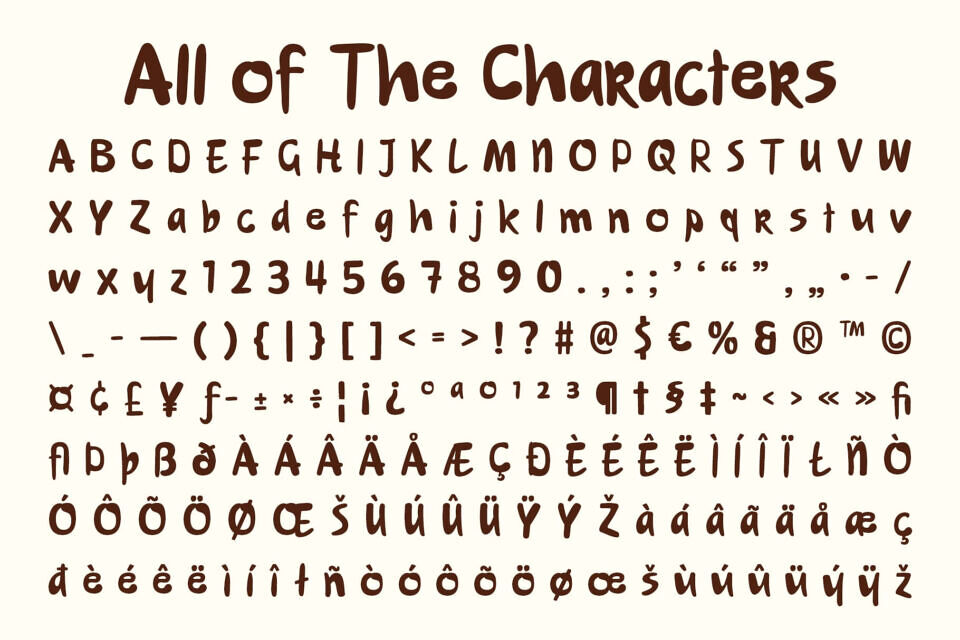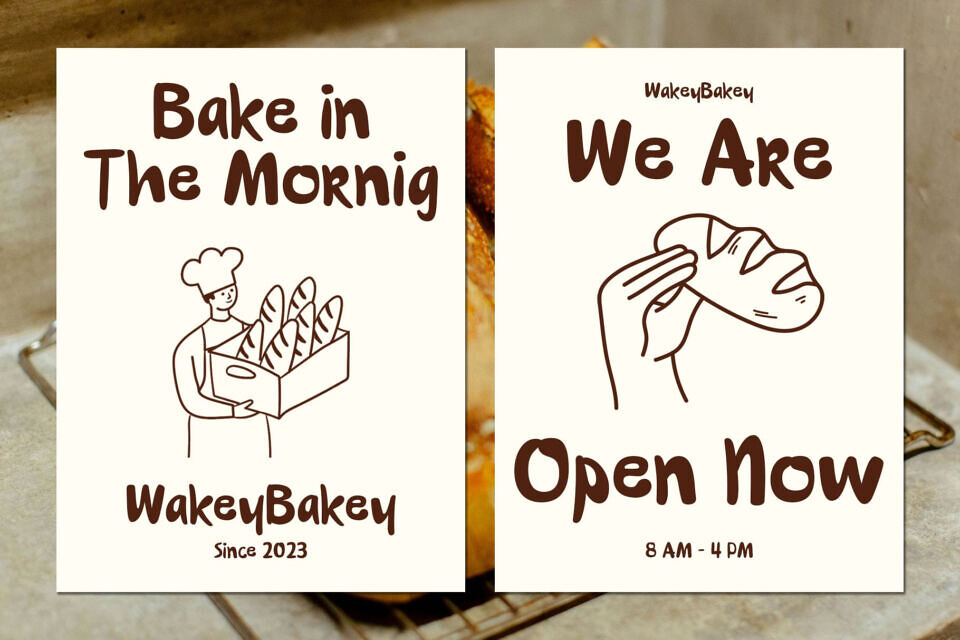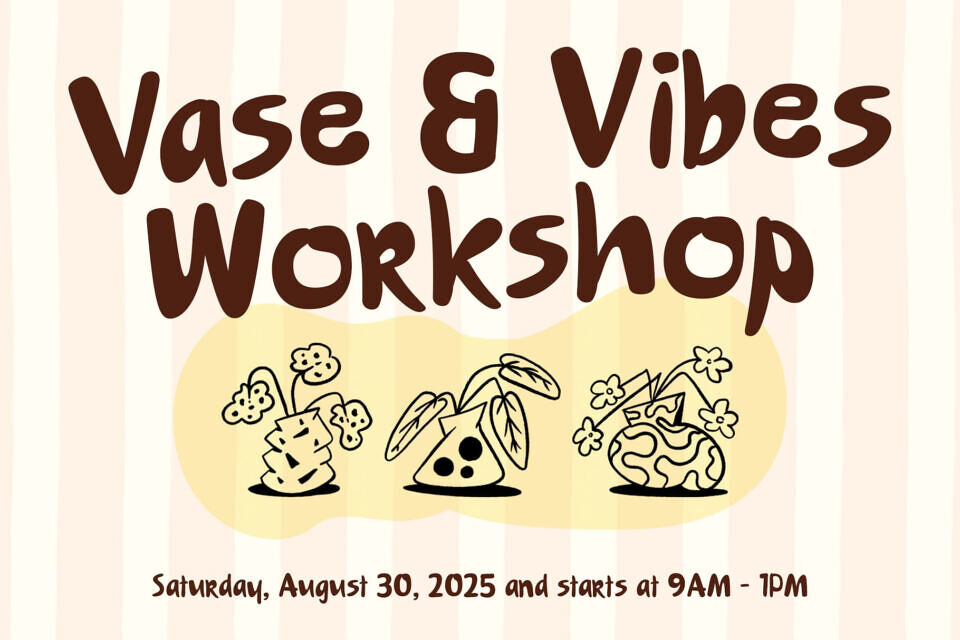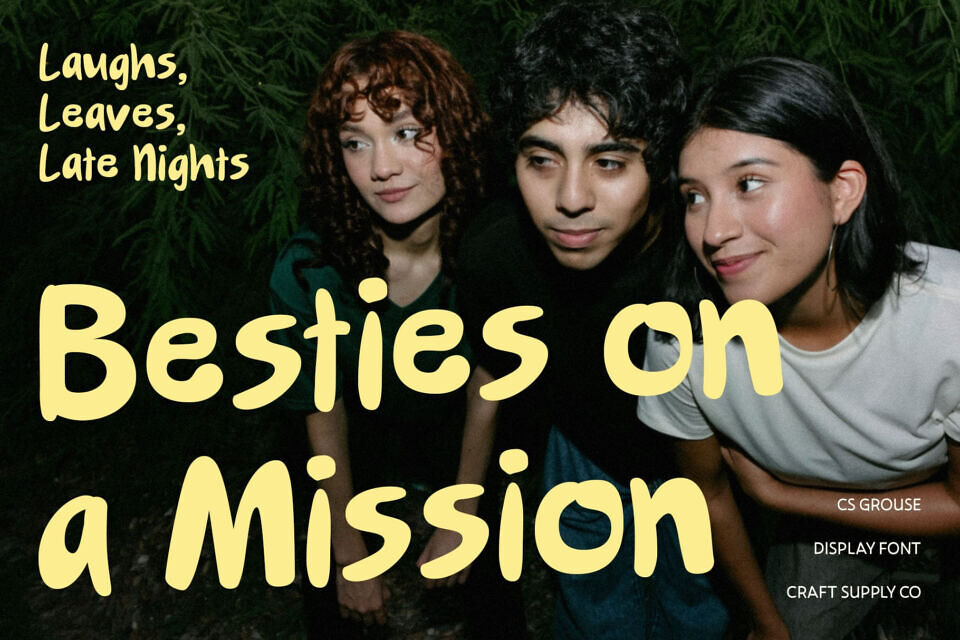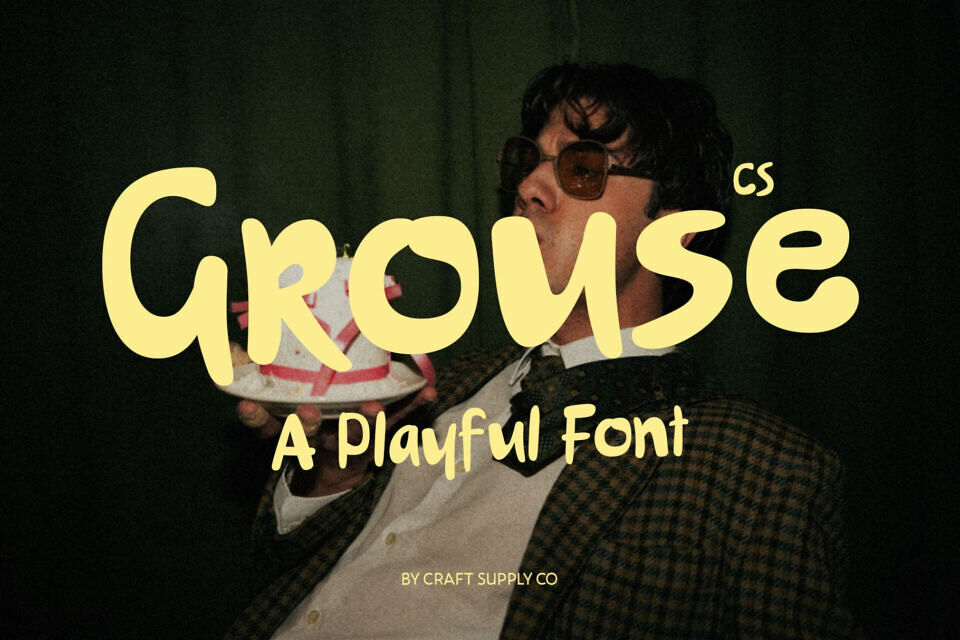
Cs Grouse Font
CS Grouse is a modern display font with a unique handwritten style that combines clean, neat letterforms with an approachable flow. Its balanced strokes give a polished yet casual look, making it both stylish and versatile for various design needs.
Designed to bring energy and joy, this font radiates a lighthearted and cheerful vibe that instantly captures attention. The handwritten essence softens its structure, adding a warm and friendly personality to your designs.